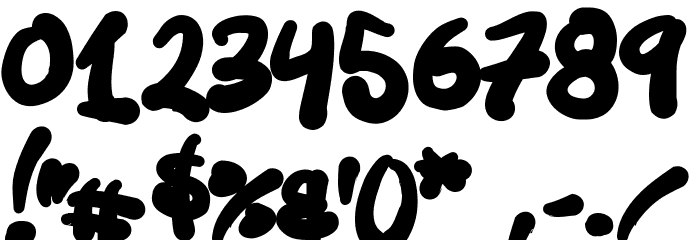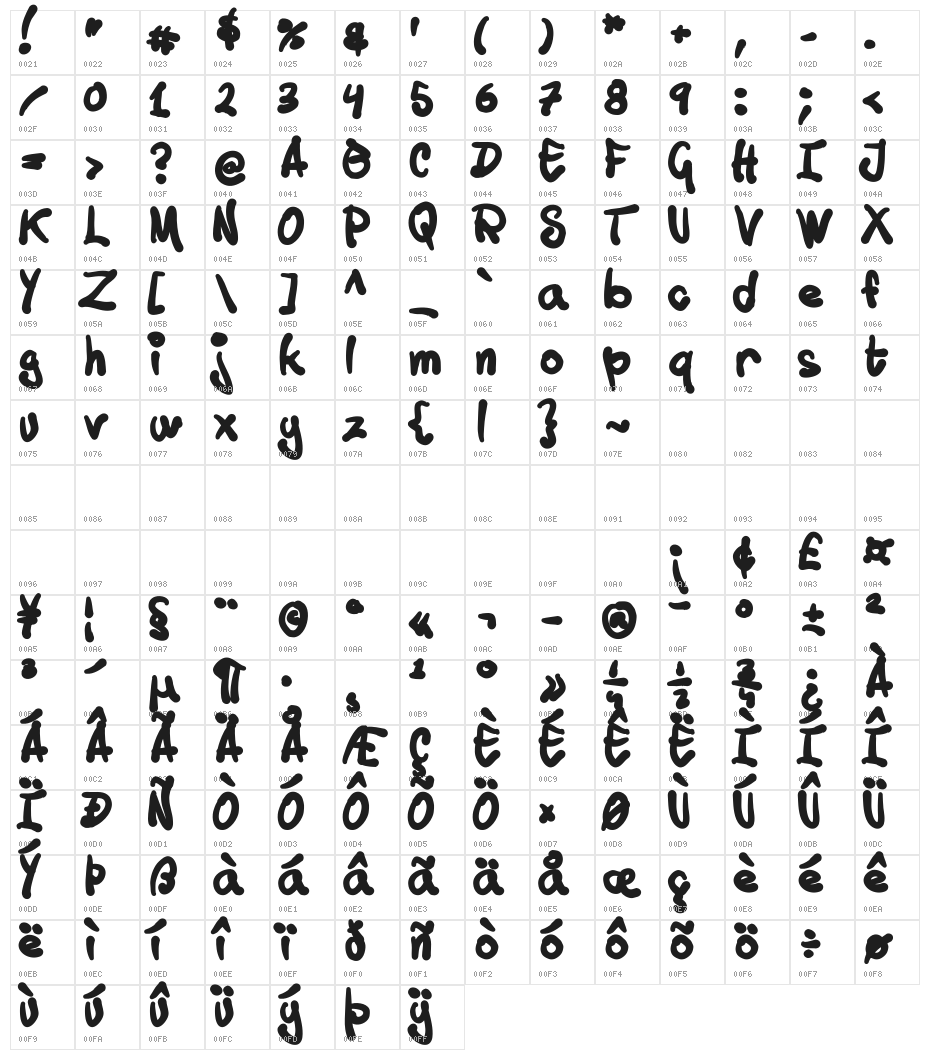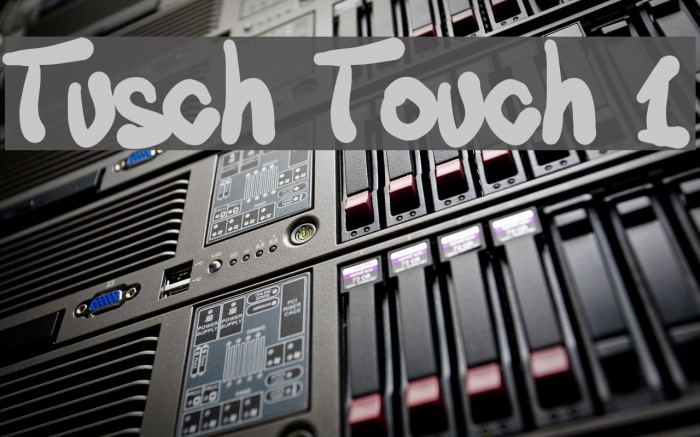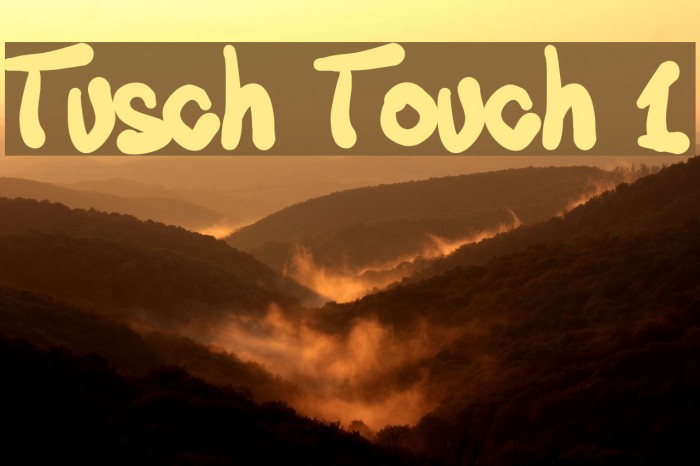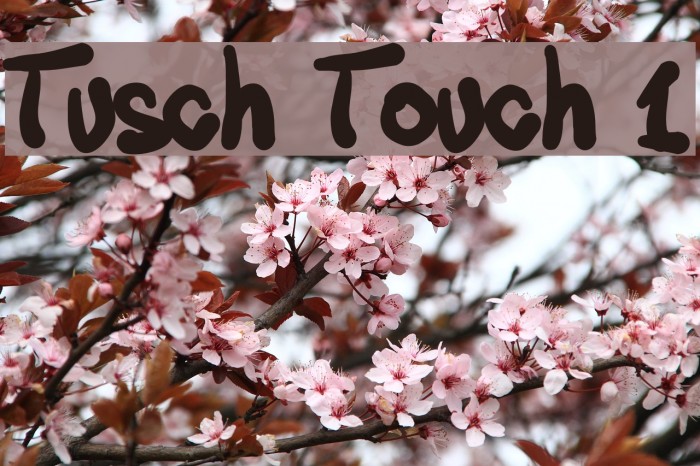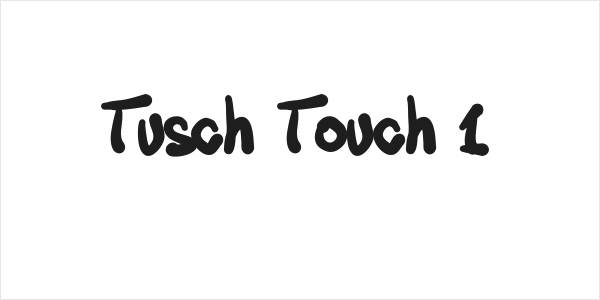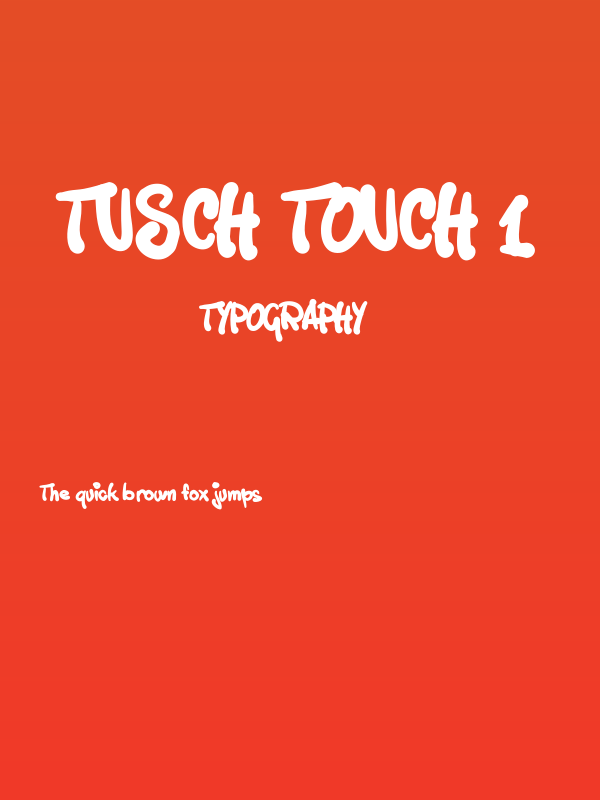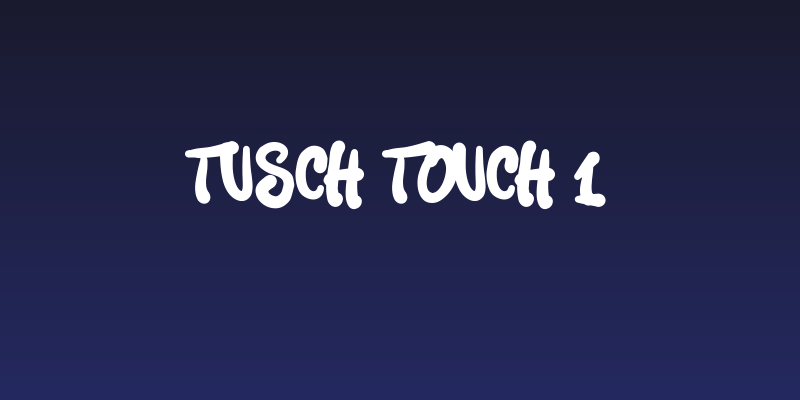
Tusch Touch 1 Font
Tusch Touch 1 Description
This font features a bold, expressive style with a handwritten appearance, characterized by thick strokes and a playful, energetic vibe. The letters are rounded and slightly irregular, giving it a casual and informal feel. The uppercase and lowercase letters maintain a consistent style, with the uppercase being slightly larger and more pronounced. Numbers and special characters follow the same bold and dynamic design, making them easily recognizable and visually appealing. The overall look is reminiscent of graffiti or street art, making it suitable for projects that require a bold and artistic touch.
Proposed ProjectsIdeal for posters, street art designs, children's book covers, and creative branding projects.